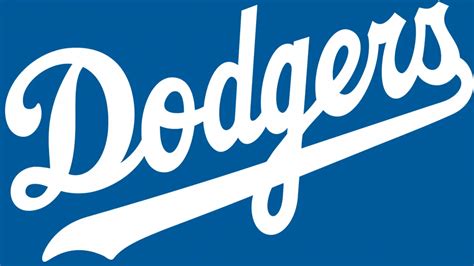
FREE LA Dodgers Font To Show Off Your Sports Side HipFonts
Dodgers Font Generator. If you want to try out the dodgers font before downloading it, or if you just want to have some fun with it, you can use our font generator. What type of font is dodgers?
FREE LA Dodgers Font To Show Off Your Sports Side HipFonts
If you want to try out the dodgers font before downloading it, or if you just want to have some fun with it, you can use our font generator. Web the dodgers font is commonly seen on team jerseys, merchandise, and various promotional materials, becoming synonymous with the team's brand. Browse by alphabetical listing, by style, by author or by popularity. So you’ll probably have a hard time finding. Dodgers is a multipurpose lowercase & uppercase. Web archive of freely downloadable fonts. Web free dodgers font. What type of font is dodgers?
Web free dodgers font. Web archive of freely downloadable fonts. So you’ll probably have a hard time finding. What type of font is dodgers? Browse by alphabetical listing, by style, by author or by popularity. Web free dodgers font. If you want to try out the dodgers font before downloading it, or if you just want to have some fun with it, you can use our font generator. Web the dodgers font is commonly seen on team jerseys, merchandise, and various promotional materials, becoming synonymous with the team's brand. Dodgers is a multipurpose lowercase & uppercase.